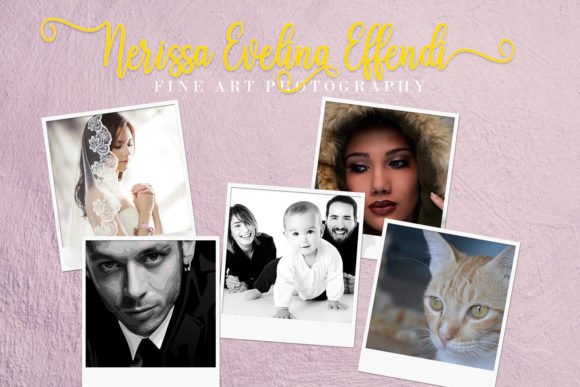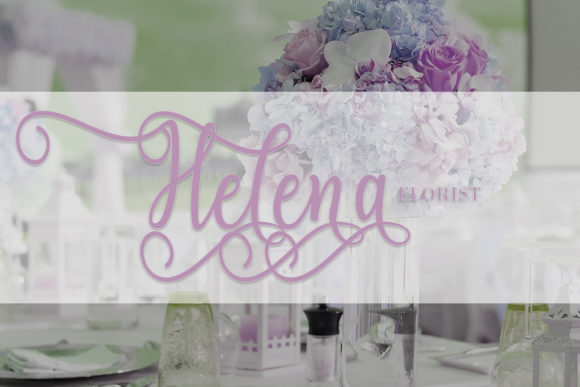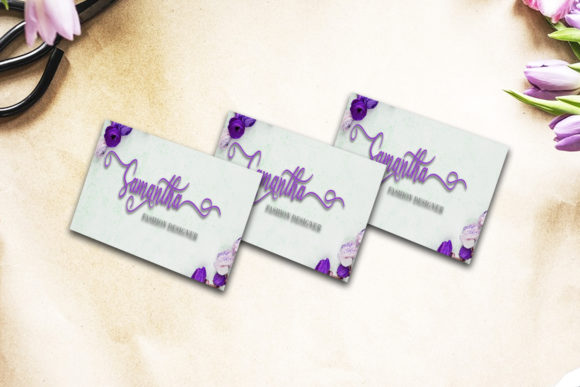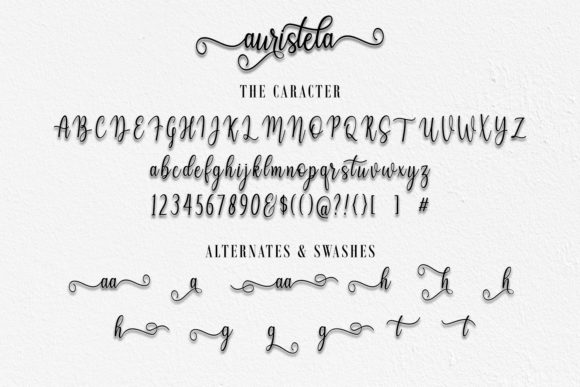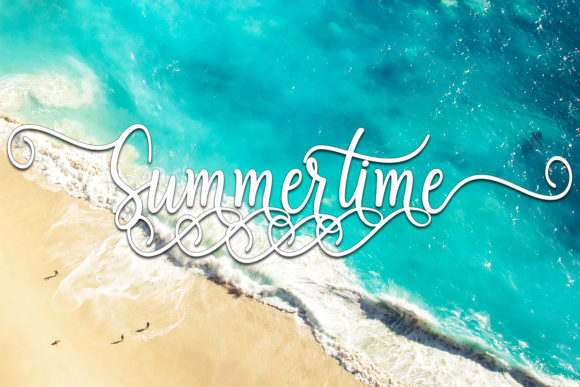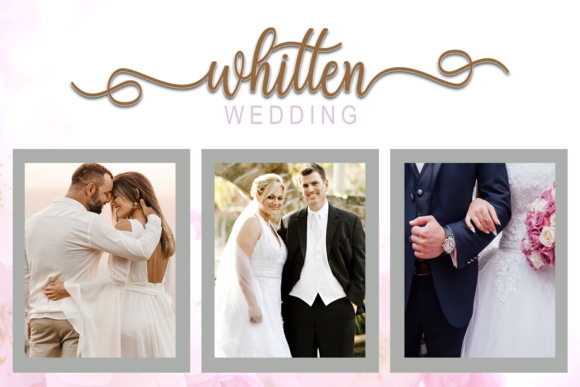
Auristela Script Font: Elevate Your Designs with Elegance and Sophistication
Auristela Script Font is a breathtakingly beautiful script font that has taken the design world by storm. With its stunning swashes and modern style, it’s no wonder that designers and crafters are falling in love with this font. In this article, we’ll dive into the world of Auristela Script Font, exploring its features, benefits, and uses, and why it’s a must-have for any designer or crafter looking to elevate their designs.
What is Auristela Script Font?
Auristela Script Font is a modern script font that boasts an elegant and sophisticated style. Its unique blend of classic and contemporary elements makes it perfect for a wide range of design projects, from wedding invitations and branding materials to packaging and digital media. With its beautiful swashes and flowing lines, Auristela Script Font adds a touch of luxury and refinement to any design.
Key Features of Auristela Script Font
- Stunning Swashes: Auristela Script Font features amazing swashes that add a touch of elegance and sophistication to any design.
- Modern Style: With its modern style, Auristela Script Font is perfect for designers and crafters looking to create fresh and contemporary designs.
- High-Quality Design: Auristela Script Font is designed with high-quality craftsmanship, ensuring that it looks great in any design project.
- Versatile: Auristela Script Font is versatile and can be used for a wide range of design projects, from print to digital media.
Benefits of Using Auristela Script Font
So, why should you use Auristela Script Font in your designs? Here are just a few benefits:
- Adds Elegance and Sophistication: Auristela Script Font adds a touch of luxury and refinement to any design, making it perfect for high-end branding and marketing materials.
- Stand Out from the Crowd: With its unique and modern style, Auristela Script Font helps your designs stand out from the crowd and grab attention.
- Easy to Use: Auristela Script Font is easy to use and can be easily integrated into your design projects.
- Highly Versatile: Auristela Script Font can be used for a wide range of design projects, making it a great addition to any design library.
Uses of Auristela Script Font
Auristela Script Font is perfect for a wide range of design projects, including:
- Wedding Invitations: Add a touch of elegance and sophistication to your wedding invitations with Auristela Script Font.
- Branding Materials: Use Auristela Script Font to create high-end branding materials, such as logos, business cards, and letterheads.
- Packaging: Add a touch of luxury to your packaging with Auristela Script Font.
- Digital Media: Use Auristela Script Font to create stunning digital media, such as social media graphics and website headers.
Tips for Using Auristela Script Font
Here are a few tips for using Auristela Script Font in your designs:
- Use it Sparingly: Use Auristela Script Font sparingly to add emphasis and create visual interest.
- Pair it with Other Fonts: Pair Auristela Script Font with other fonts to create a unique and visually appealing design.
- Experiment with Swashes: Experiment with the swashes in Auristela Script Font to add a touch of elegance and sophistication to your designs.
Auristela Script Font is a stunning script font that is sure to elevate your designs with its elegance and sophistication. With its modern style, amazing swashes, and high-quality design, it’s a must-have for any designer or crafter looking to create beautiful and effective designs. Whether you’re working on a wedding invitation, branding materials, or digital media, Auristela Script Font is the perfect choice.